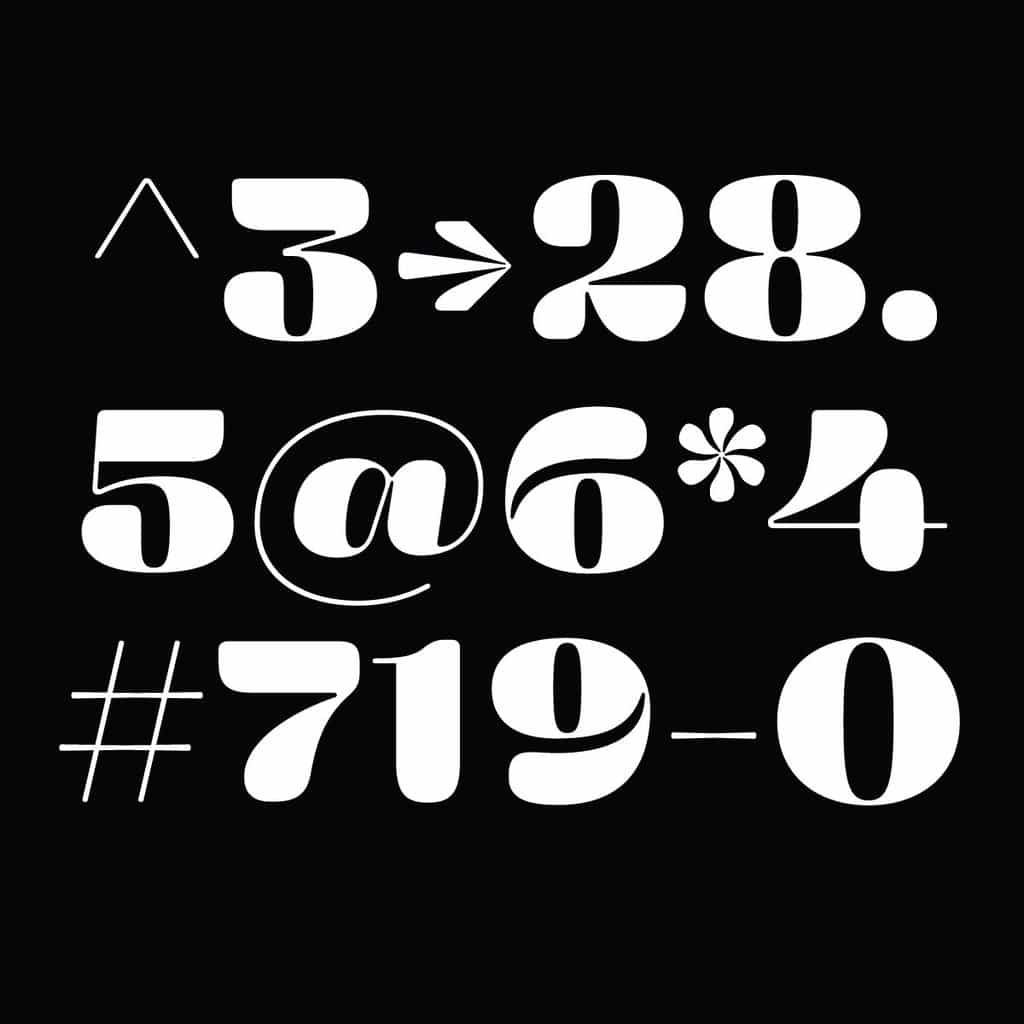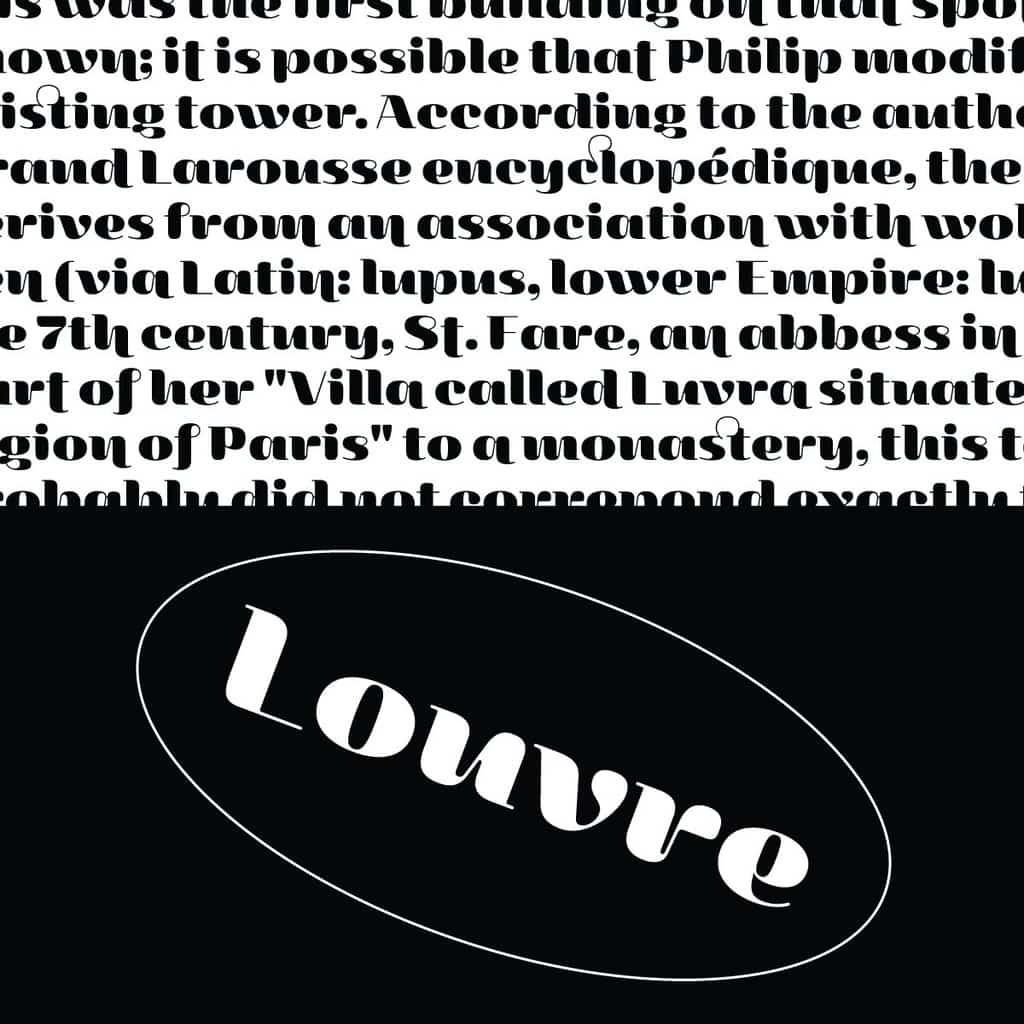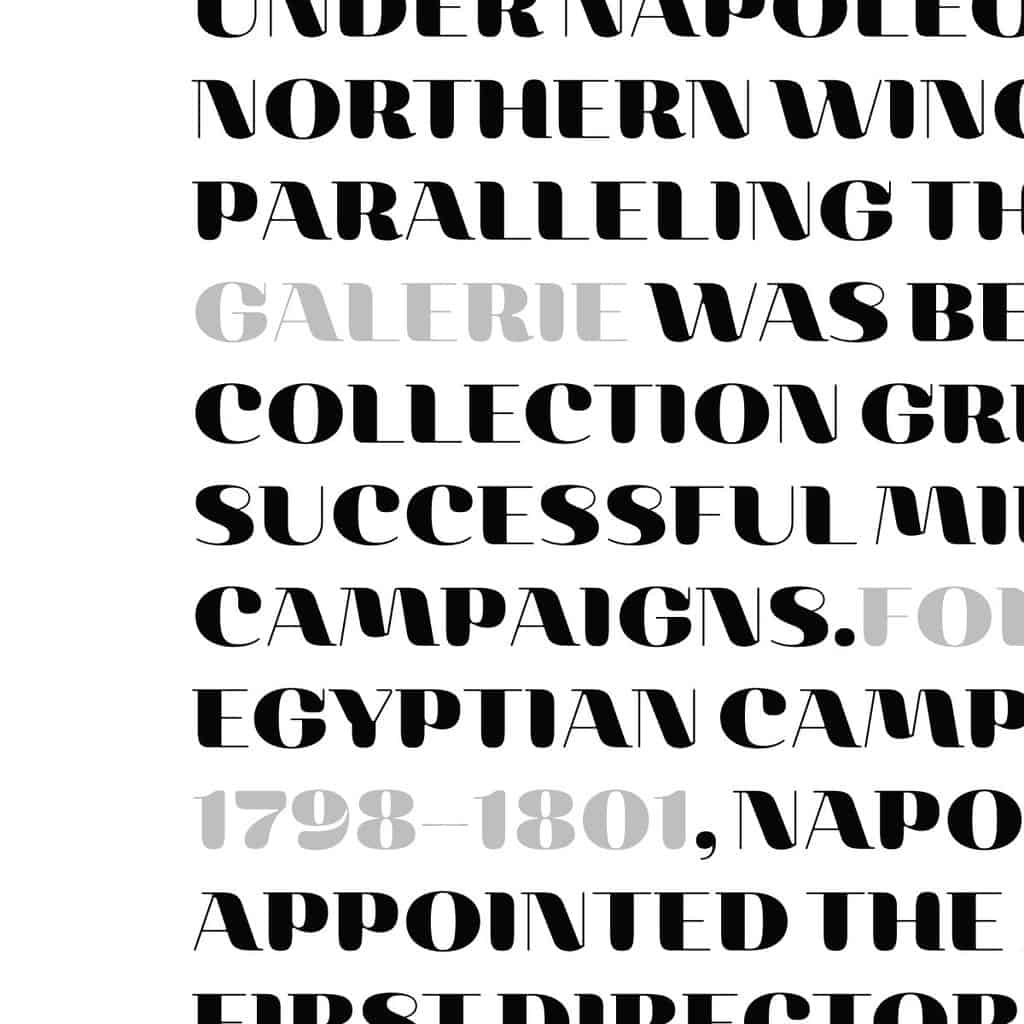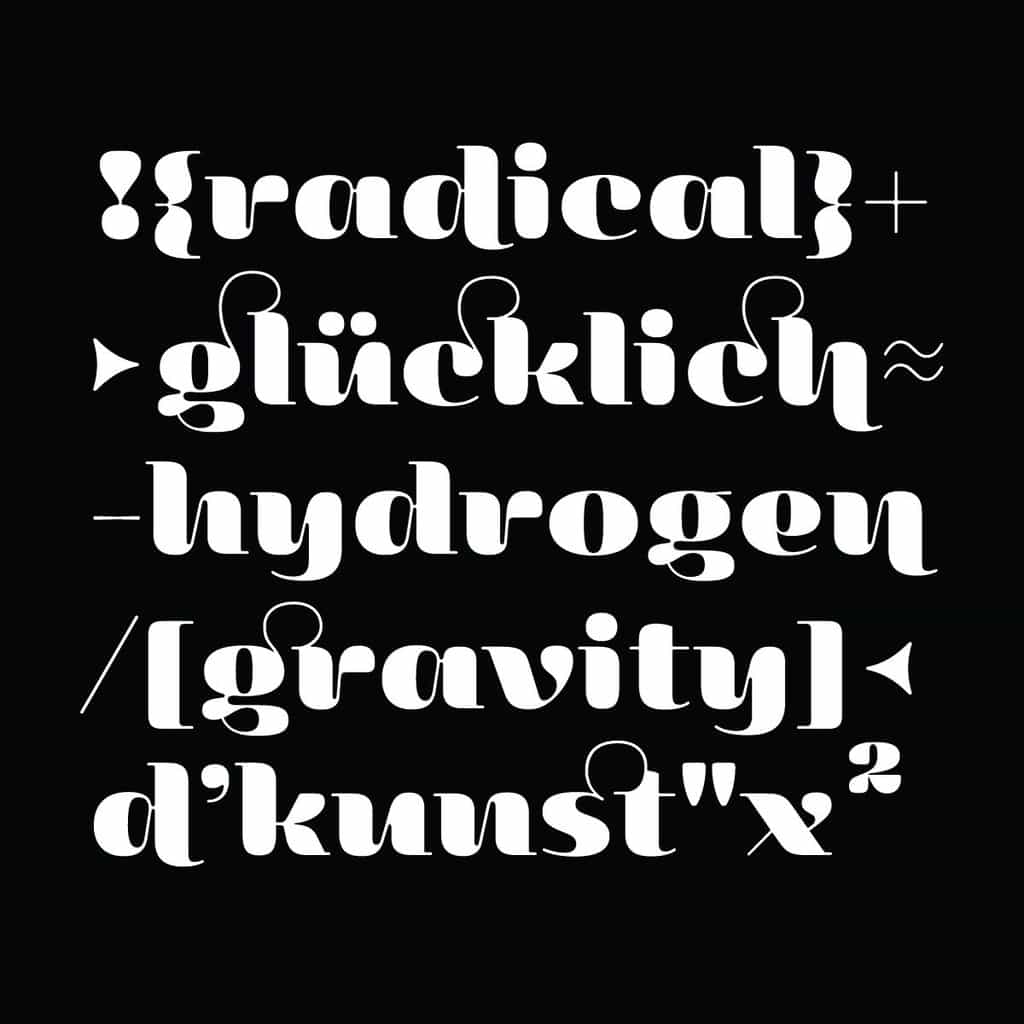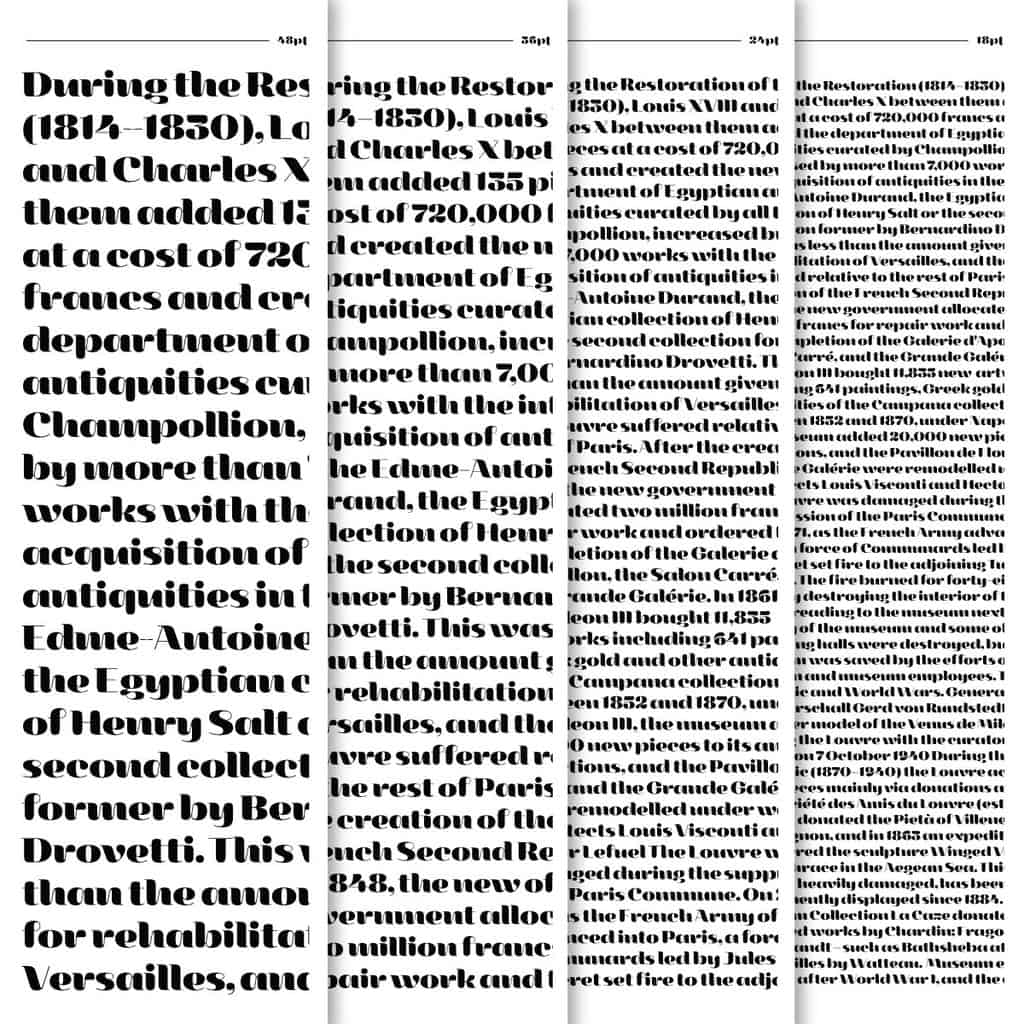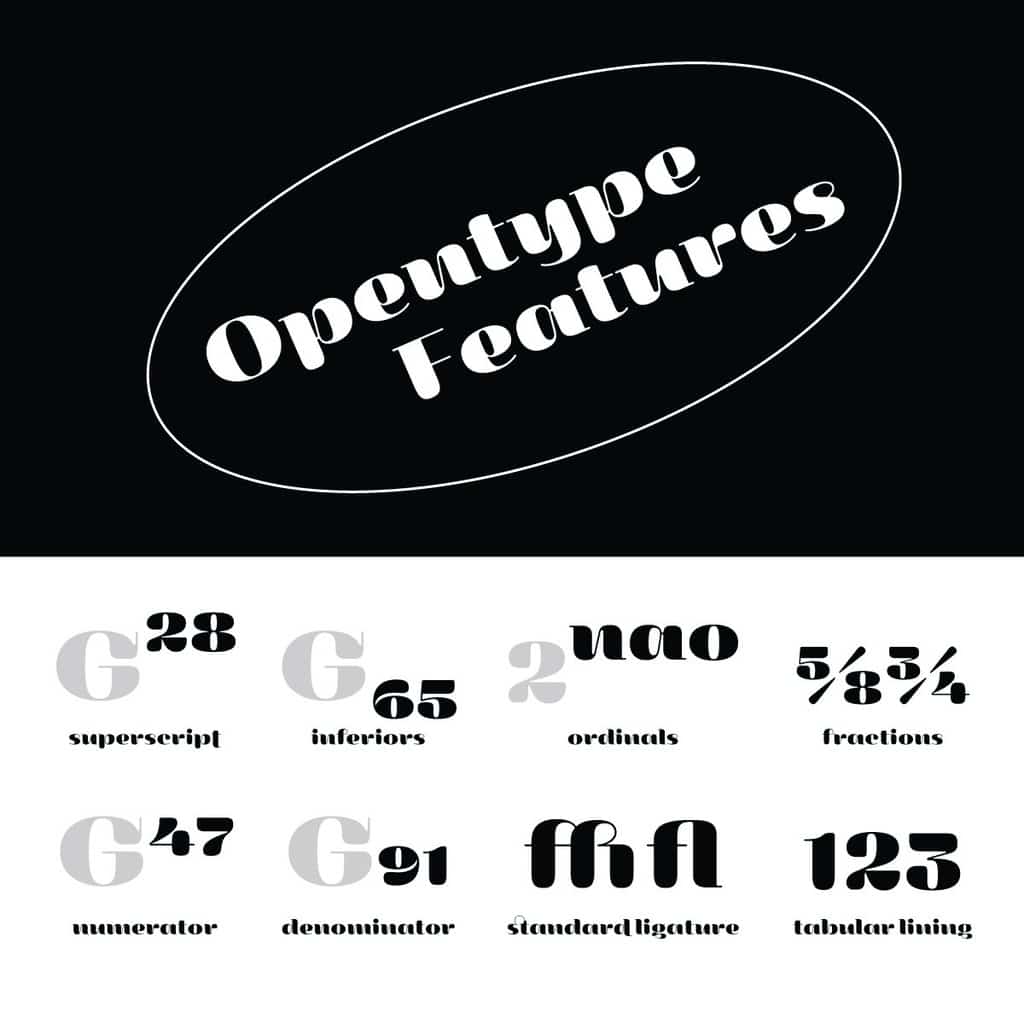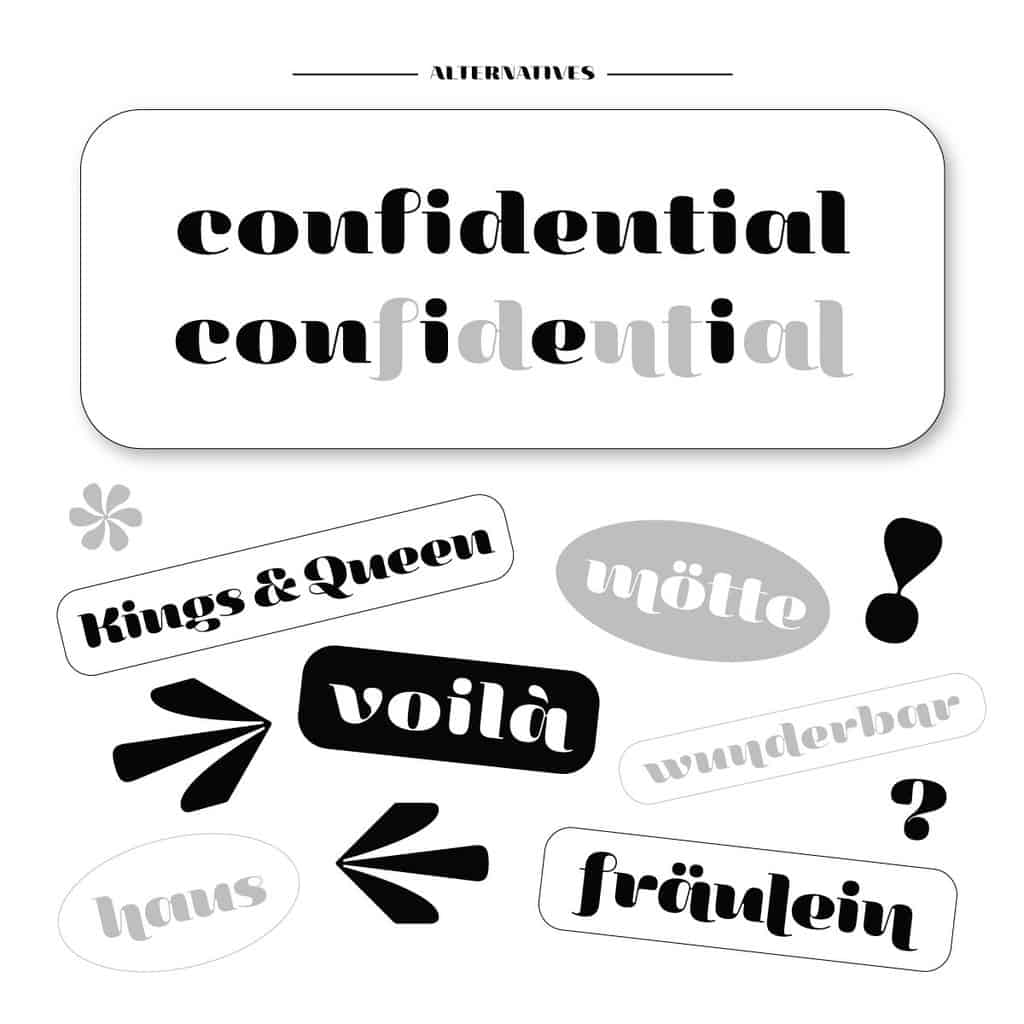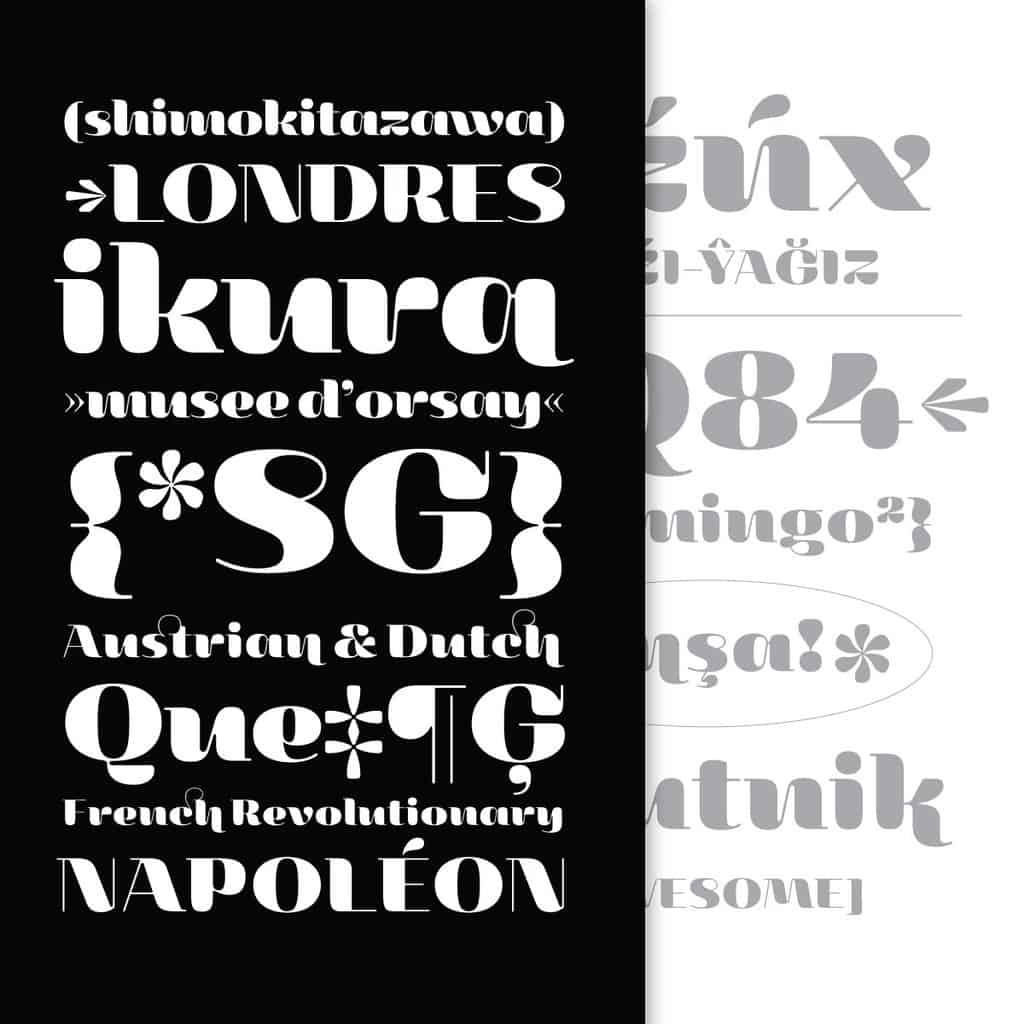
Emile Display
Emile Display is a bold celebration of the quirkiness of letterforms. Strongly inspired by brush calligraphy, Emile explores the boundaries of tools used in the writing process alongside the possibilities and potential of different shapes.
With its exaggerated contrast and spontaneous strokes blended with rounded shapes, Emile stands out of the crowd with a friendly feel; resulting in a charming, unconventional approach to the traditional serif type. Emile is best suited to headlines, but also works beautifully in text settings.